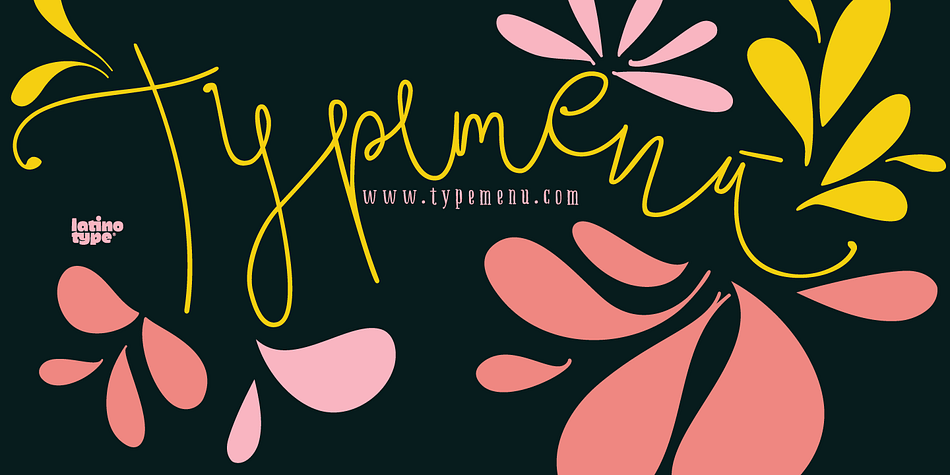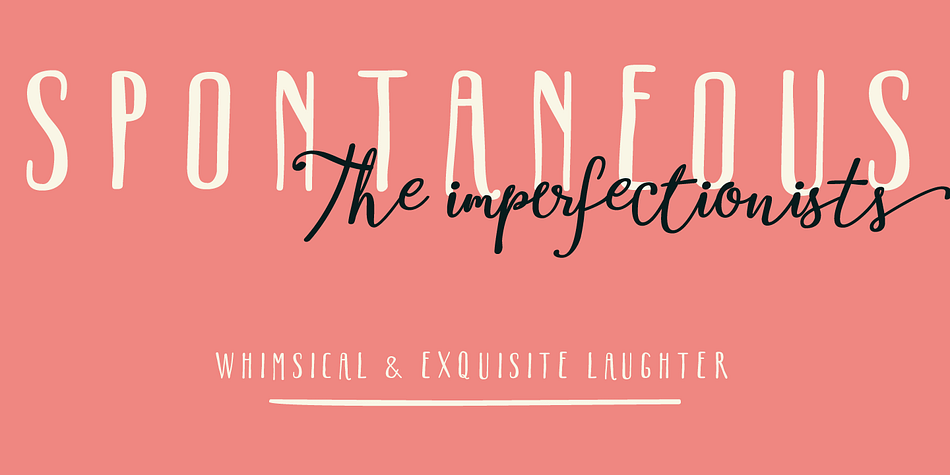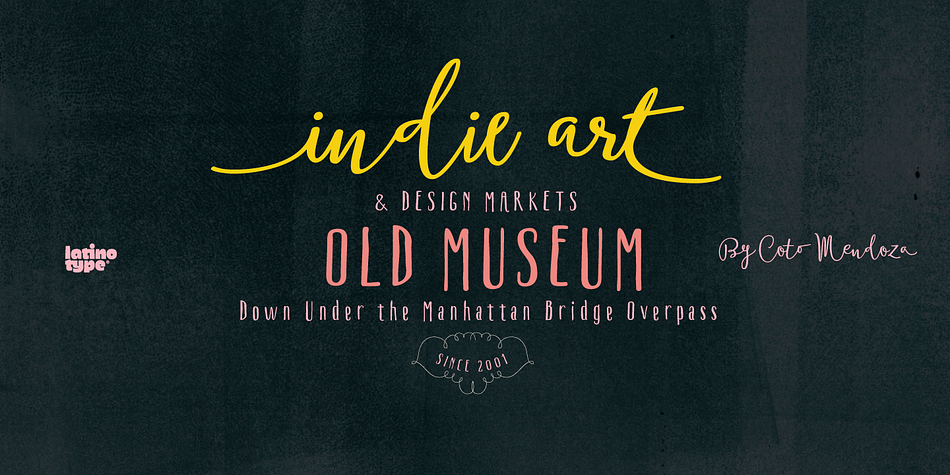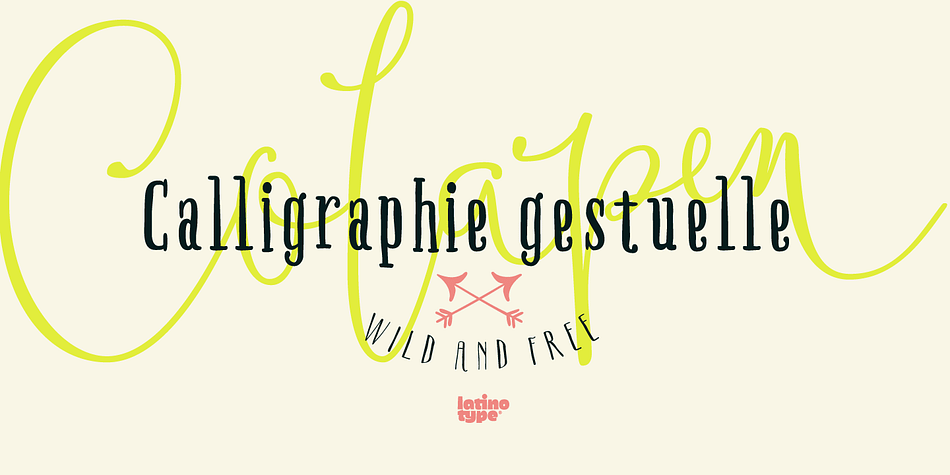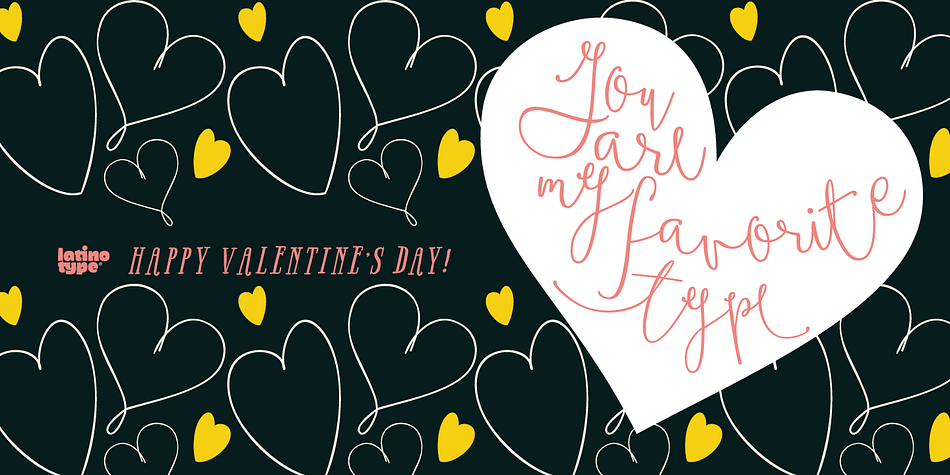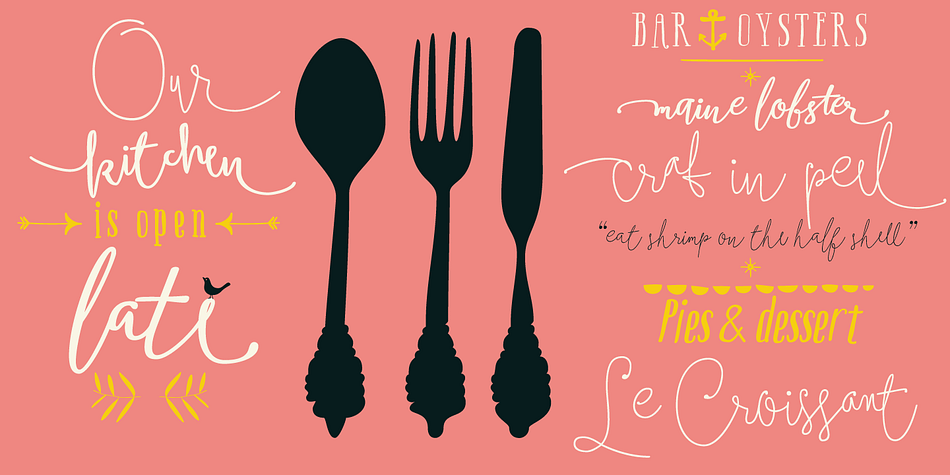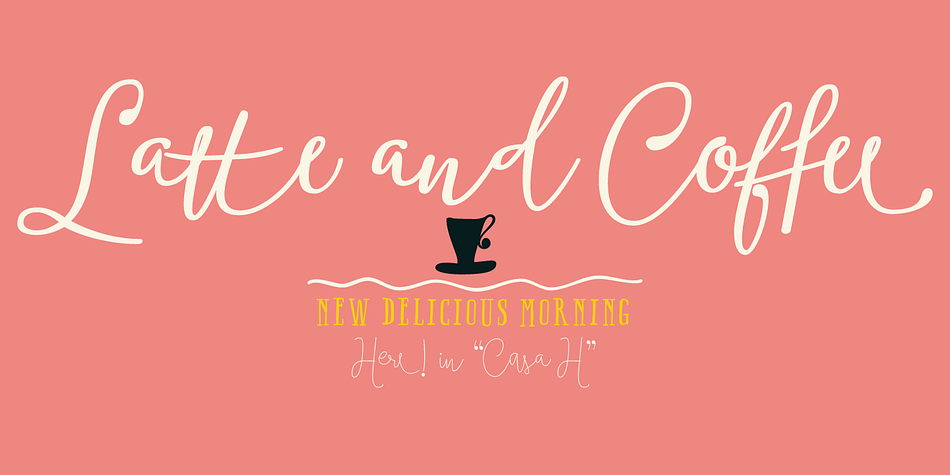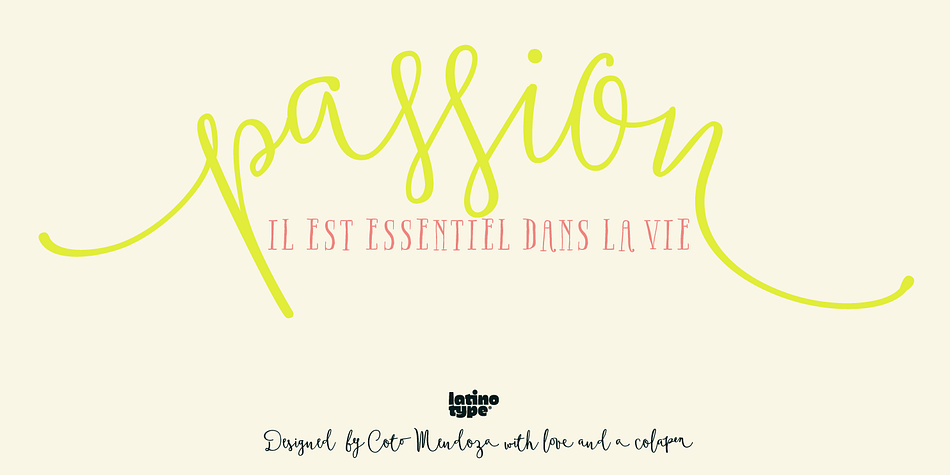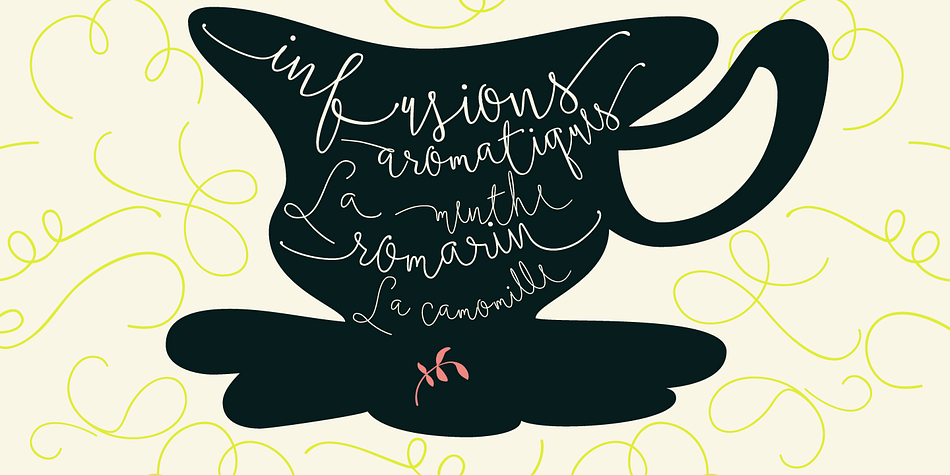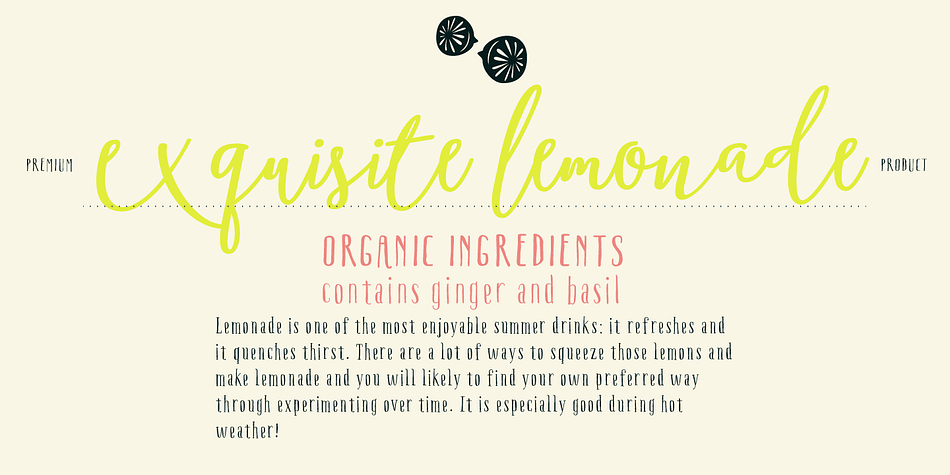
Boho is a dingbat, script and hand display font family. This typeface has twenty-six styles and was published by Latinotype.
Boho is inspired by a bohemian girl who is a free soul and creative spirit. She is a city girl, but she loves spending a lot of time outdoors and being close to nature. She loves art and going to the antiques and organic food markets. She is a wild and free spirit who knows no bounds.
Boho is Coto Mendoza’s first Script font family, which is based on gestual calligraphy with Cola pen. A first exposure to gestual strokes applied to font design can be seen in her previous work, Macarons.
Boho consists of 4 subfamilies: Script, Line, Sans and Serif. Each subfamily comes in 4 weights: Regular, Bold, Italic and Bold Italic. Script and Line versions include a teardrop terminal variant. Dingbats and ornaments are also included.
Boho. Love and creative spirit!